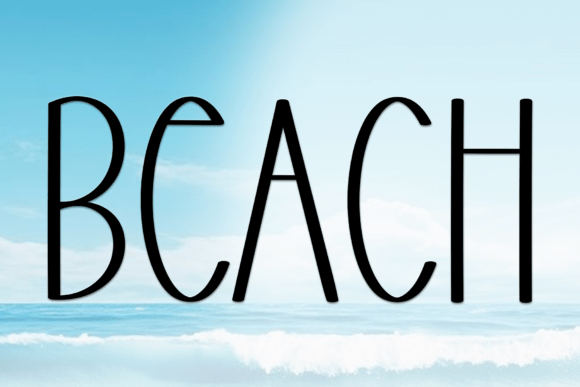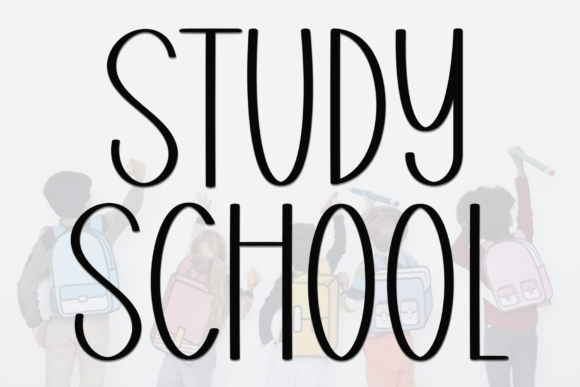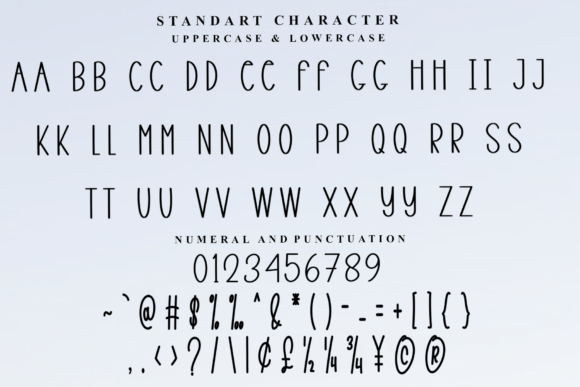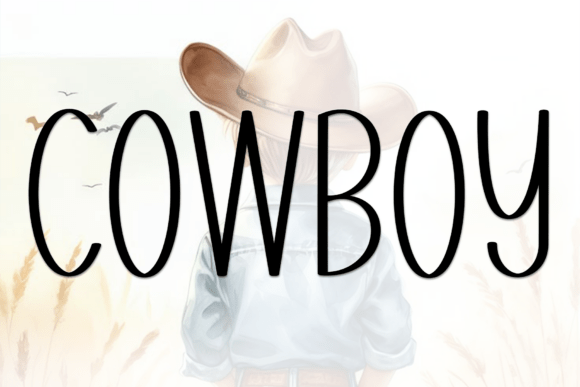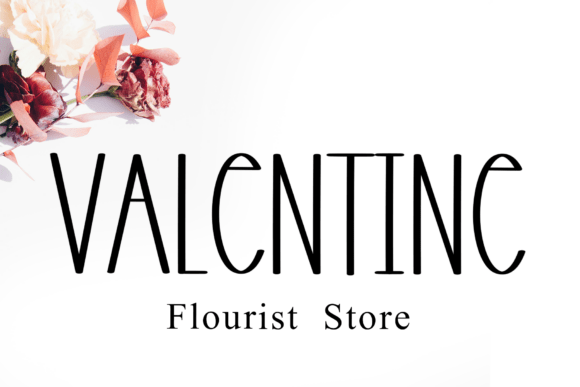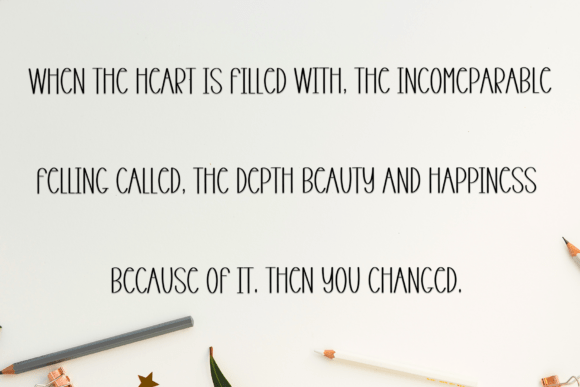
Designing with Confidence: The Power of Business Font
Have you ever stared at a blank page, feeling the weight of a looming deadline and the pressure to create something truly remarkable? I know I have. It’s in those moments that we search for the perfect font, one that embodies the essence of our message and leaves a lasting impression. For me, that font is Business Font – a modern sans serif typeface that screams professionalism and sophistication.
Business Font is more than just a font, it’s a statement piece that elevates any design to new heights. With its sleek, tall characters and clean aesthetic, it’s the perfect choice for corporate branding, presentations, and editorial headlines. As a designer, I can attest to the value of having a versatile font like Business Font in your toolkit. It’s a game-changer that can make all the difference in communicating your message with confidence and clarity.
Business Font Key Features
- Size: Supports font sizes ranging from 8 to 72 points, making it suitable for various business applications, including presentations, reports, and marketing materials.
- Resolution: Optimized for high-resolution displays, ensuring clear and crisp text even at large font sizes.
- Unique Characteristics: Business Font features a clean, modern design with a neutral tone, making it suitable for a wide range of industries and applications.
- Font Styles: Includes multiple font styles, including regular, bold, italic, and bold italic, providing versatility for various business needs.
- Legibility: Designed for optimal legibility, making it easy to read even at small font sizes, ensuring that your business communications are clear and effective.
Business Font Review
Overall, Business Font is a solid choice for its intended purpose. It gets the job done with a clean and professional aesthetic. ✨ I particularly appreciate how well it adapts to digital platforms, making it a great option for websites and digital marketing materials. ✨ Its readability is also noteworthy, as it’s easy on the eyes and doesn’t get too cluttered even at smaller font sizes.
However, there are some limitations to consider. ⚠️ One of the main concerns is its lack of personality. Business Font is, as the name suggests, a very… business-like font. It doesn’t have the same level of flair or sophistication as some other options, which might make it feel a bit generic. ⚠️ Additionally, it may not be the best choice for creative or artistic projects, as it’s a bit too straightforward and lacks the necessary nuance.
- Limited personality
- May not be suitable for creative projects
- Lacks a unique touch
In conclusion, Business Font is a dependable choice for those looking for a clean and professional font. While it may not be the most exciting option, it gets the job done and is easy to work with. ✨ If you’re looking for something with a bit more flair, you may want to consider other options, but for a straightforward, no-nonsense approach, Business Font is a solid choice.
Practical Application Guide for Business Font
Tips for Getting the Most Out of Business Font
Use Business Font for professional documents, presentations, and marketing materials.
Pair Business Font with other clean and modern fonts to create a cohesive visual identity.
Business Font is ideal for:
Corporate reports and proposals
Business cards and letterheads
Marketing materials and brochures
“Business Font” is a generic term often associated with fonts like Arial, Calibri, or Helvetica. However, these fonts may not be the best choice for every design project. Here are some alternatives:
Merriweather is a classic serif font that is great for body text and can add a touch of sophistication to your design. It is a good choice when you want to convey a sense of tradition and professionalism. Compared to Business Fonts, Merriweather has a more elegant and refined look, making it suitable for formal documents, books, and websites.